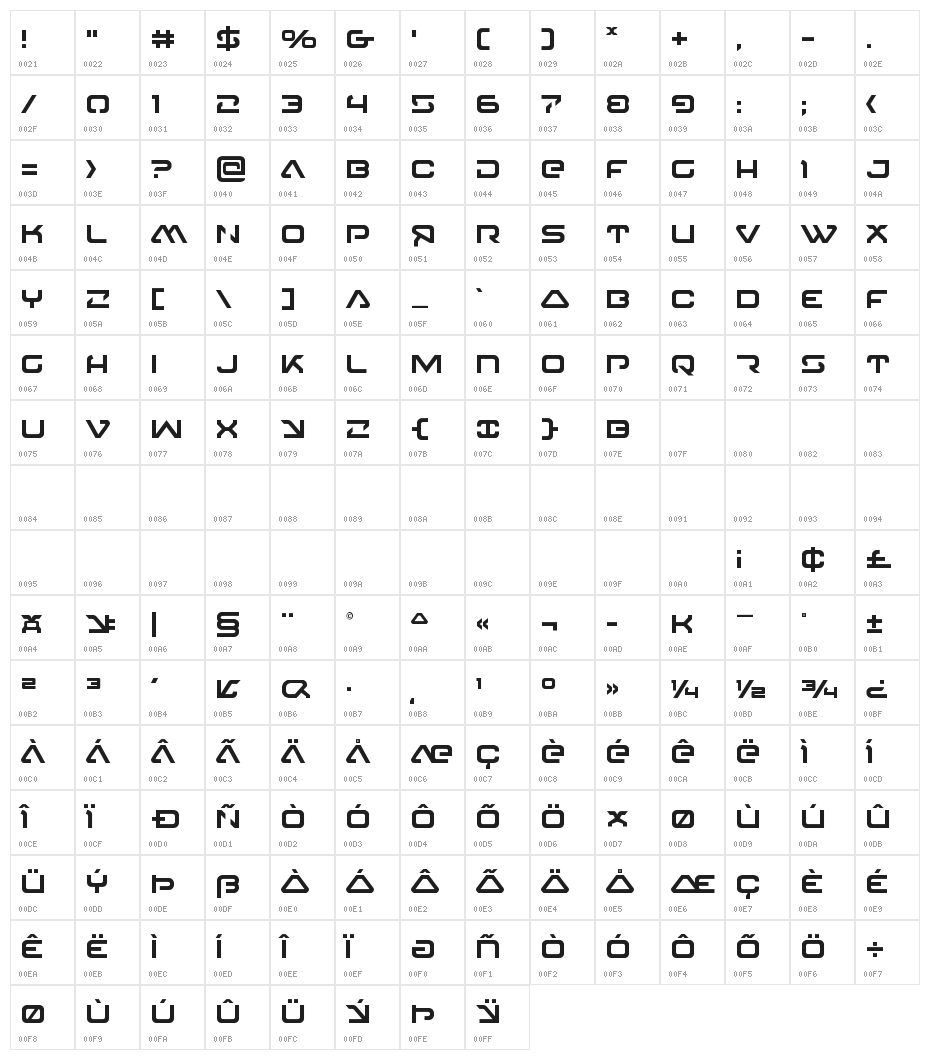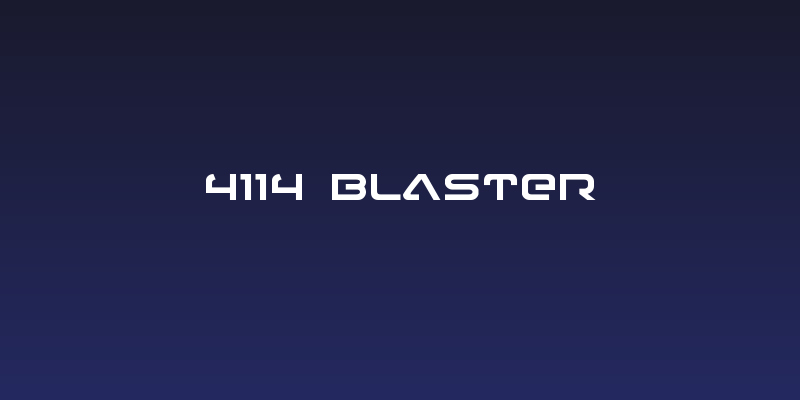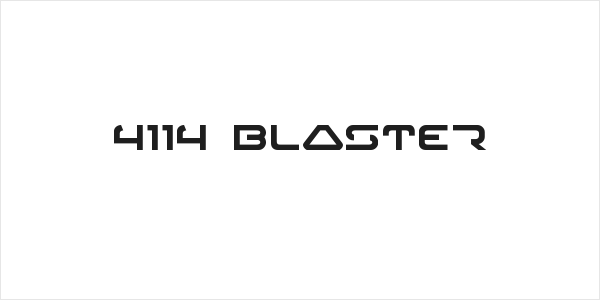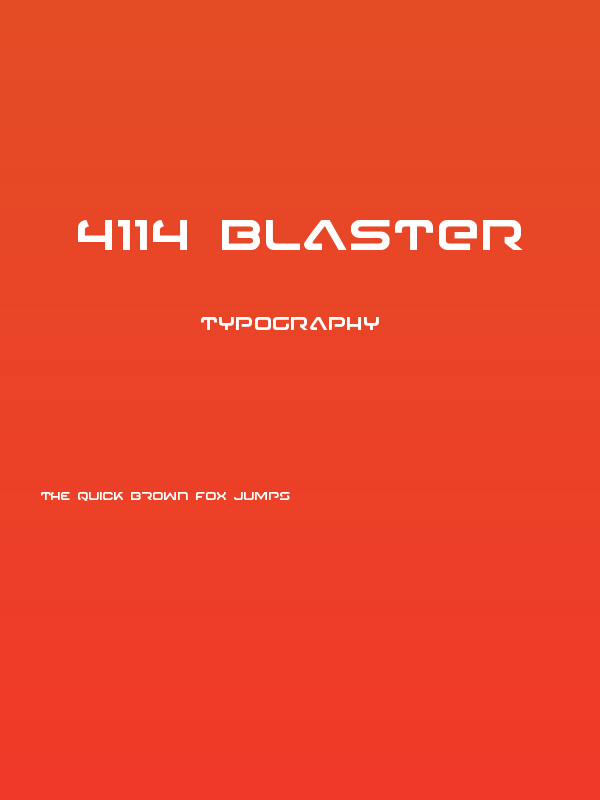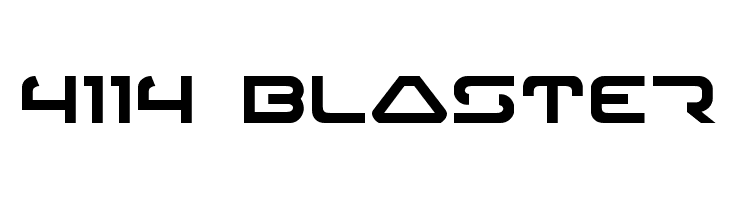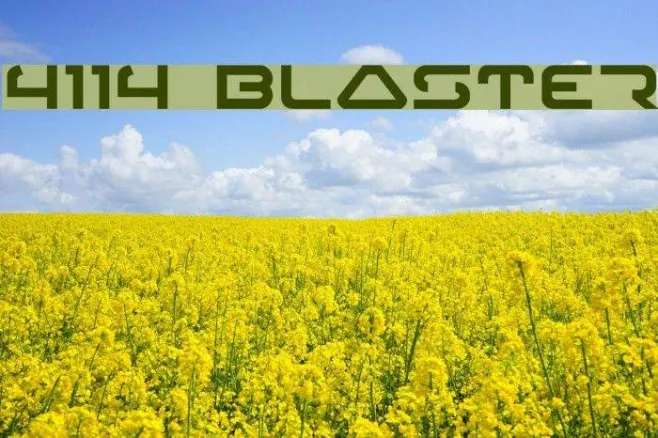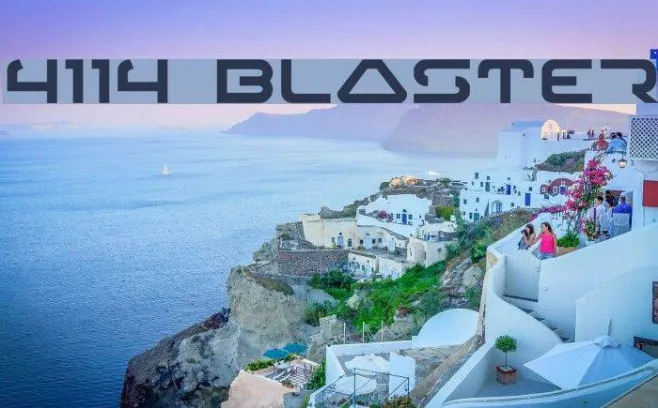
4114 Blaster Font
4114 Blaster Description
This font features a futuristic and geometric design, characterized by its bold and angular letterforms. The uppercase letters exhibit a strong presence with sharp edges and unique cutouts, giving it a distinct sci-fi aesthetic. The lowercase letters maintain the same angular style, ensuring consistency throughout the typeface. The numerals are equally bold and geometric, complementing the overall design. Special characters are crafted with the same attention to detail, making them suitable for various creative applications. The font's modern and edgy appearance makes it ideal for projects that require a contemporary and tech-inspired look.
| Proposed Projects | Ideal for tech branding, sci-fi movie posters, video game titles, and futuristic design projects. |